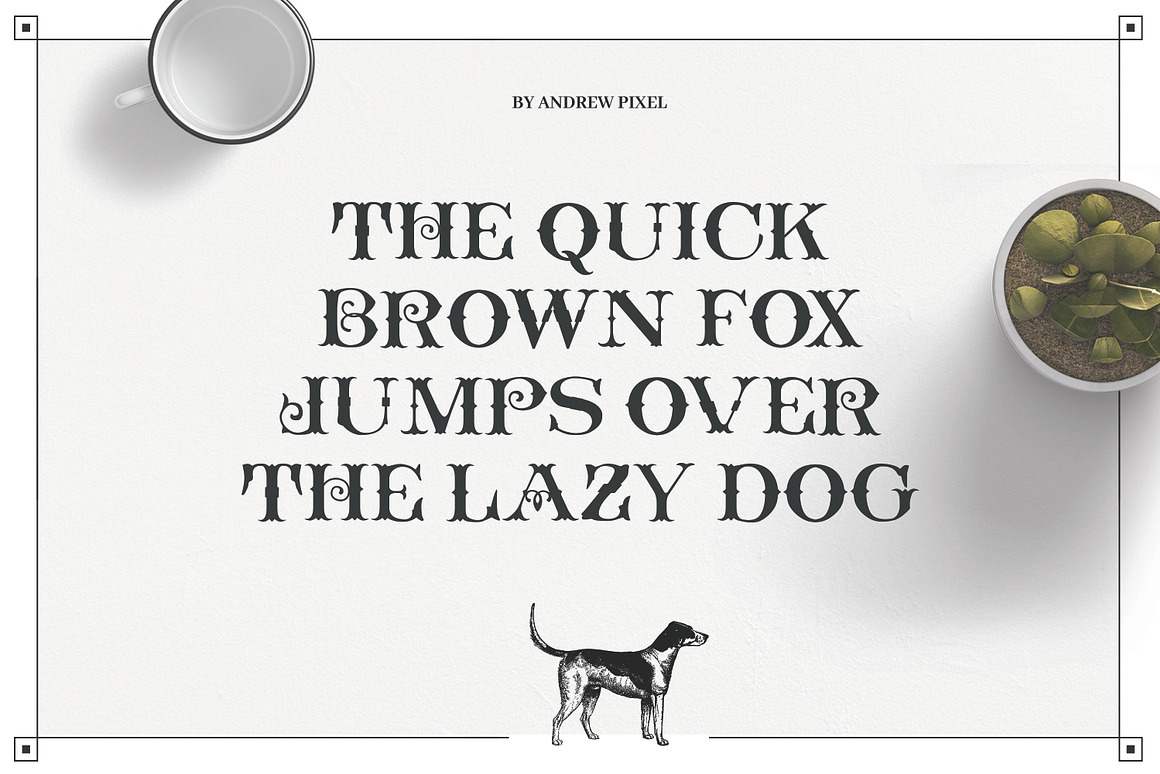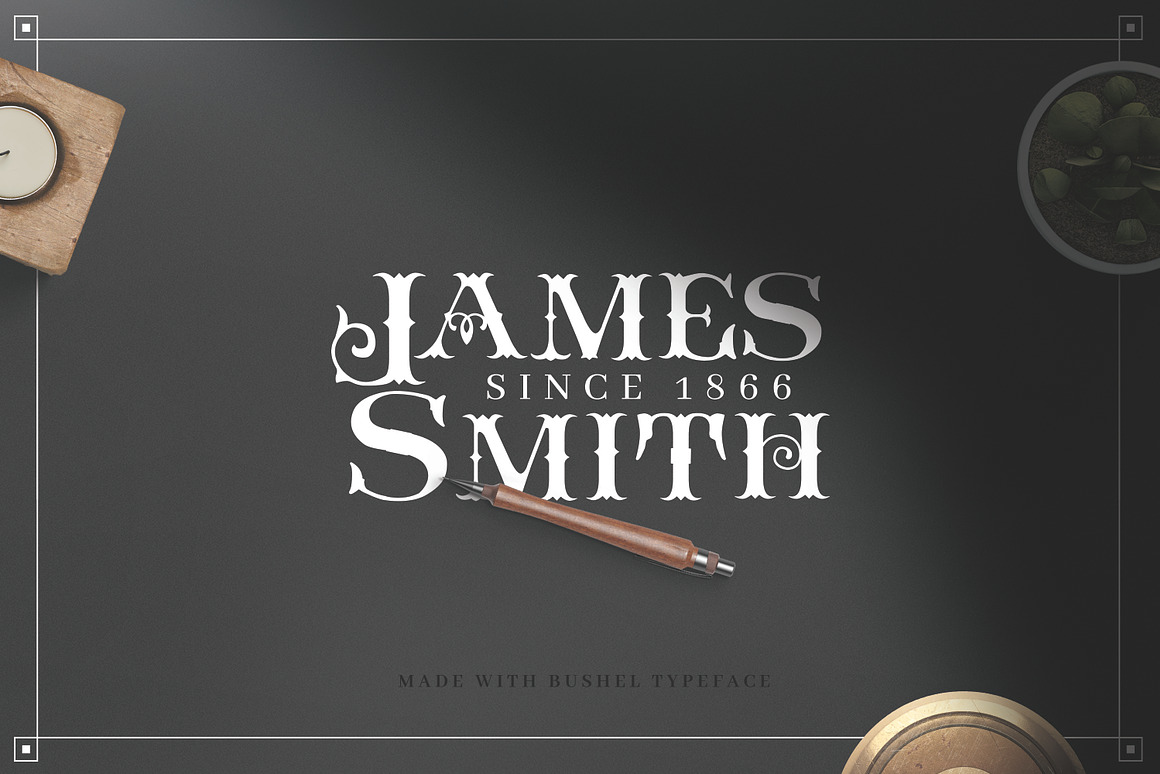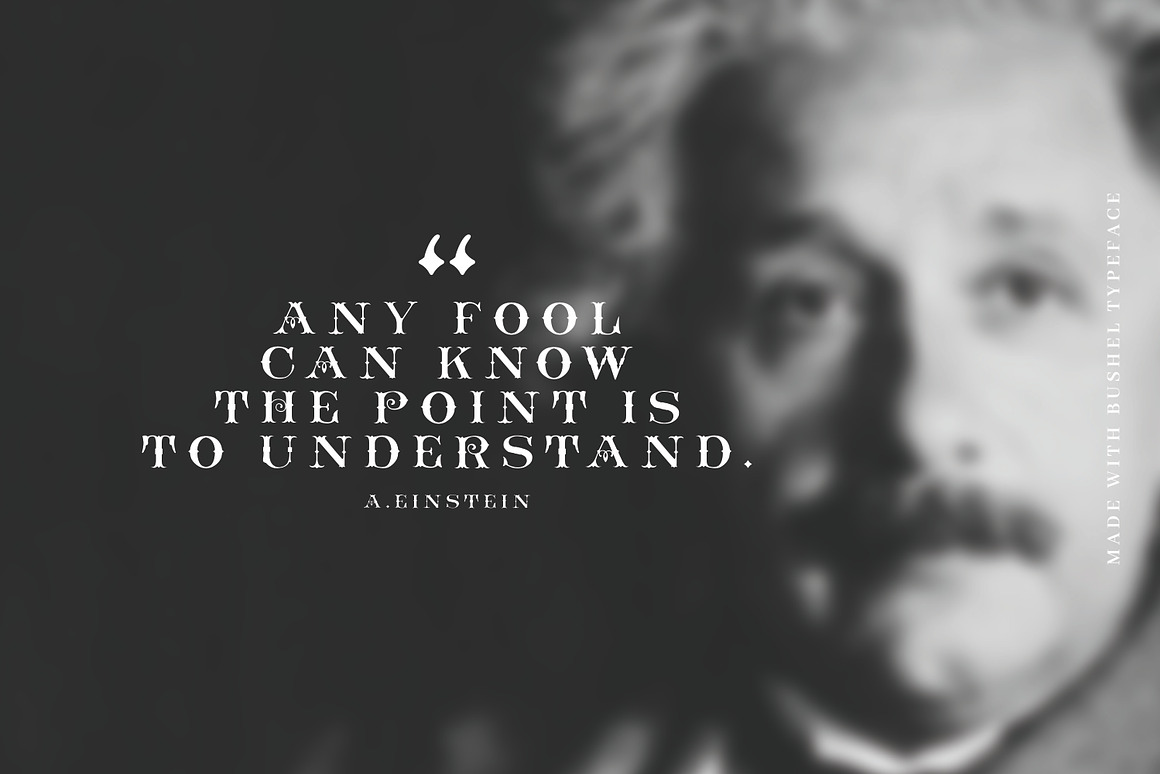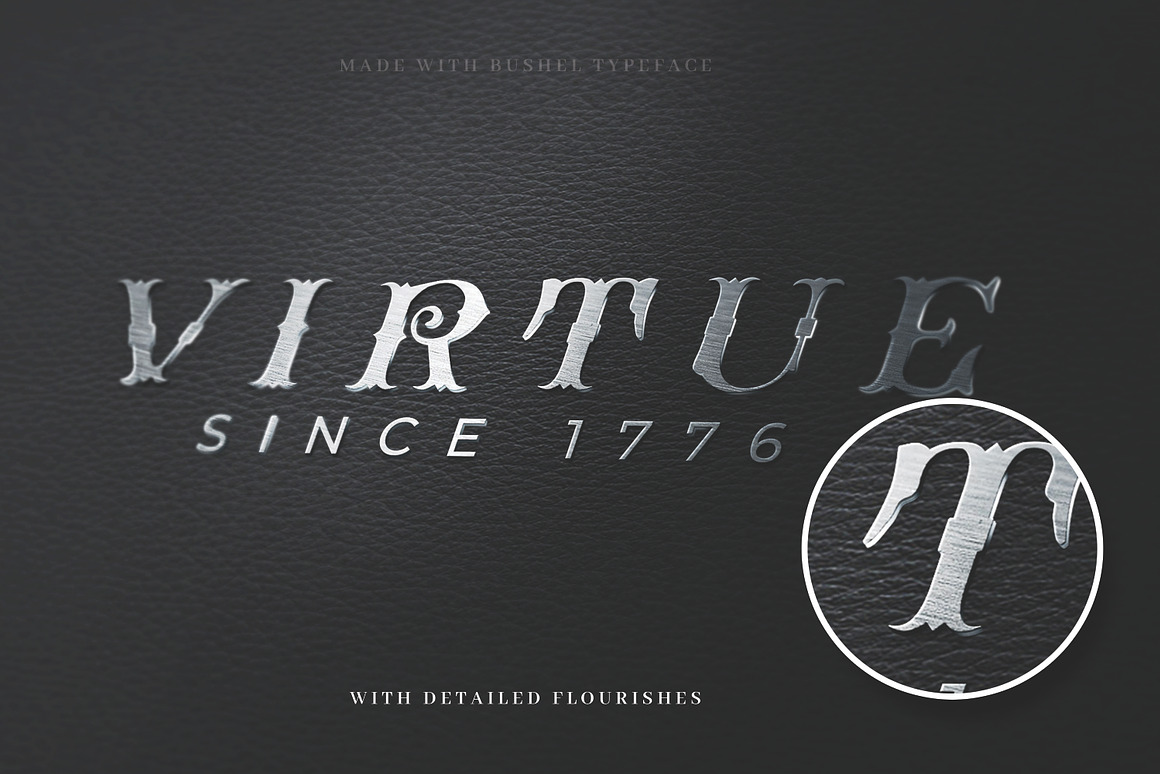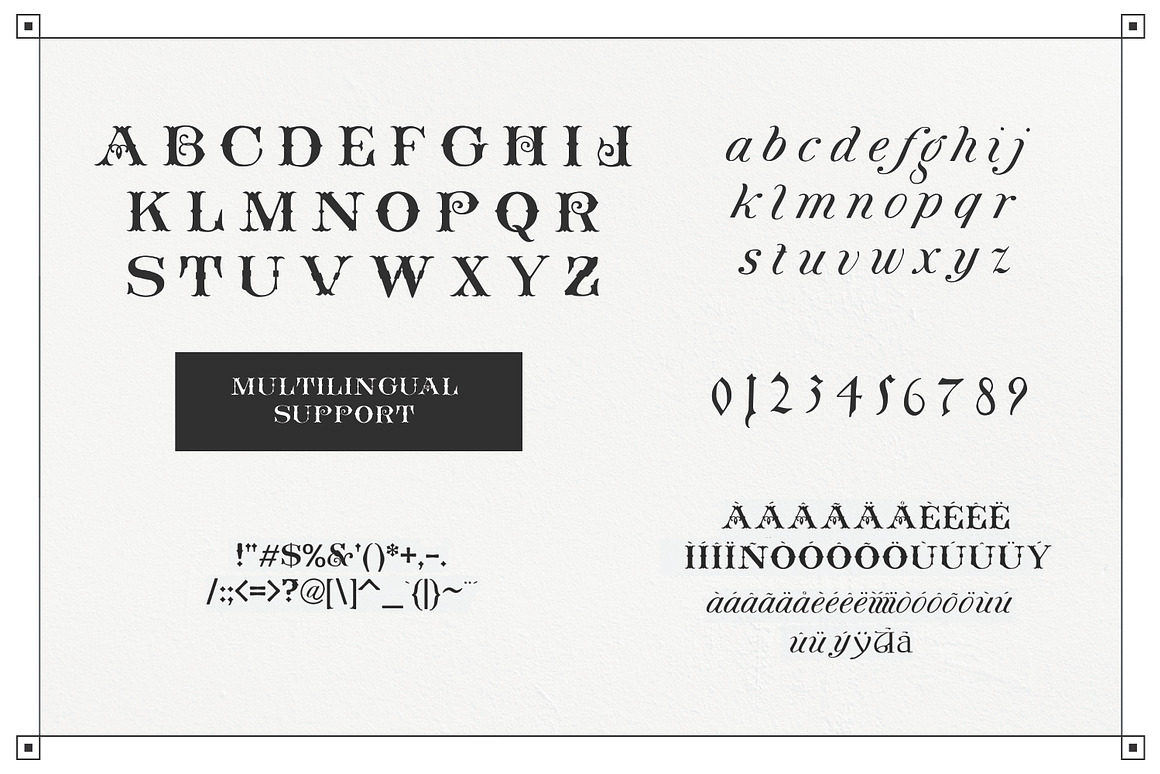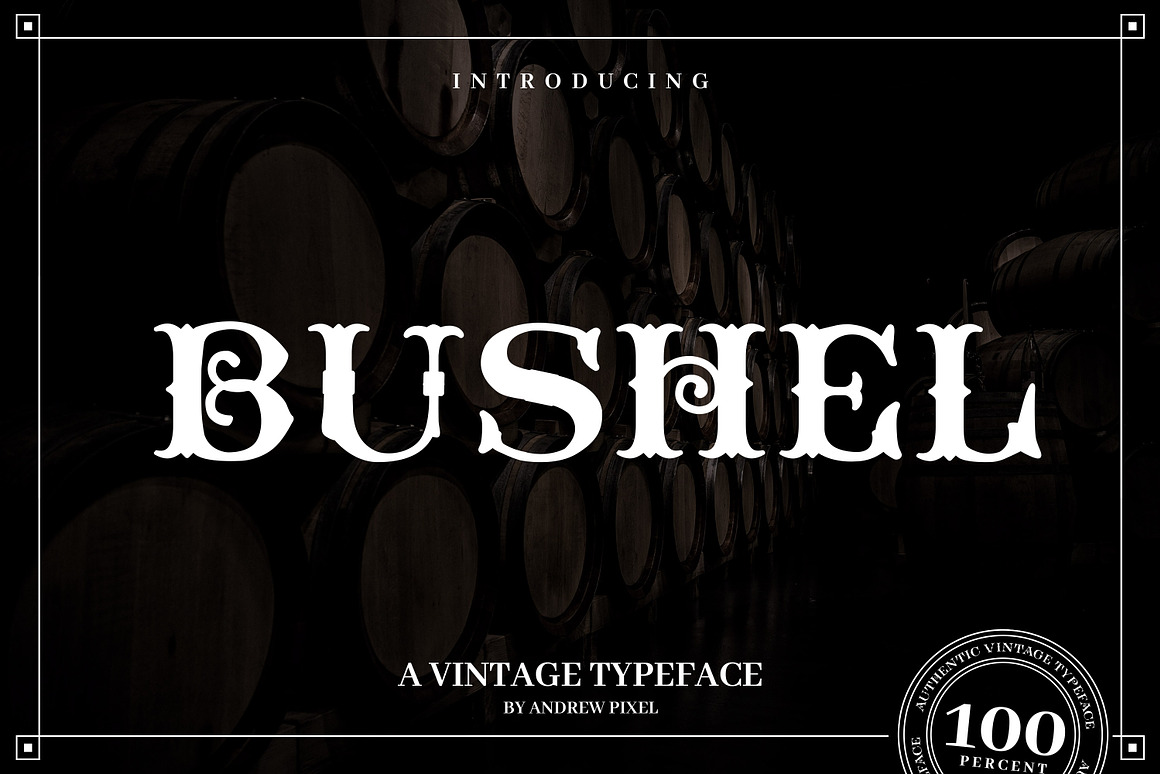
Bushel - A vintage Flourish Font
This Bushel - A vintage Flourish Font is perfect for farmhouse branding, organic food packaging, rustic wedding invitations, vintage market signage, agricultural business materials, artisan product labels, country-style restaurant menus, harvest festival promotions, traditional craft branding, and nostalgic advertising campaigns.
What makes this Bushel - A vintage Flourish Font exciting is its authentic vintage charm that captures the nostalgic essence of traditional farming and countryside heritage. The font features ornate letterforms with decorative flourishes and Victorian-inspired details that evoke the timeless appeal of agricultural abundance and rural craftsmanship. Its heritage character and ornamental beauty make it ideal for brands seeking to communicate authenticity, tradition, and wholesome values rooted in agricultural history.
The Bushel - A vintage Flourish Font family includes regular and ornate weights with decorative swashes, vintage alternates, and agricultural ornaments. This comprehensive heritage font family provides designers with traditional typographic tools to create authentic vintage compositions while maintaining the flourished character essential for rustic and agricultural brand communications.
Farm-to-table businesses and heritage brands consistently choose Bushel - A vintage Flourish Font Free Download for projects requiring authentic agricultural appeal and vintage credibility. This font's distinctive traditional character perfectly captures the wholesome values and rural heritage that resonate with audiences who appreciate authentic farming traditions and artisanal quality products.
The ornamental construction of Bushel - A vintage Flourish Font showcases carefully crafted flourishes with traditional proportions that ensure beautiful vintage aesthetics across all applications. Its decorative details and agricultural authenticity create memorable brand impressions while maintaining the readability necessary for effective heritage brand communication and rustic design applications.
Professional designers appreciate how Bushel - A vintage Flourish Font brings immediate nostalgia and agricultural authenticity to brand communications. The font's vintage nature allows organizations to communicate heritage values and traditional quality while maintaining the artistic sophistication necessary for effective positioning in organic and artisanal markets.
The timeless appeal of Bushel - A vintage Flourish Font makes it particularly effective for brands emphasizing traditional farming, organic practices, and rural heritage values. Its flourished character resonates strongly with audiences who appreciate authentic agricultural traditions, wholesome products, and businesses that honor time-tested farming practices.
Whether developing packaging for organic farm products or creating materials for heritage agricultural events, Bushel - A vintage Flourish Font Free Download provides the traditional typographic foundation that heritage brands need to communicate their agricultural authenticity, vintage charm, and the wholesome quality that defines traditional farming excellence and rural craftsmanship heritage.